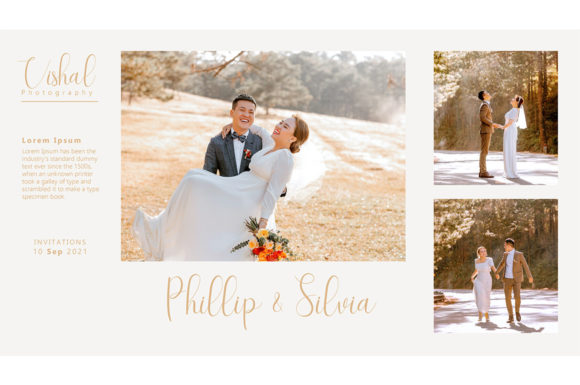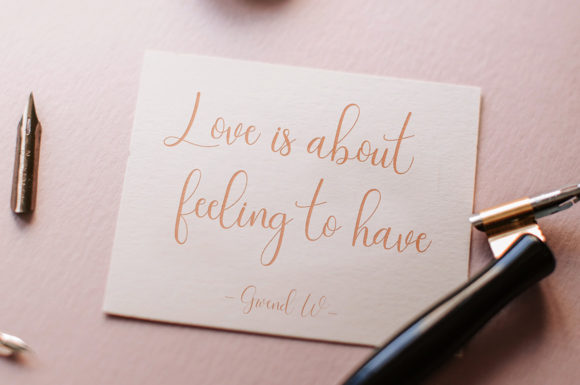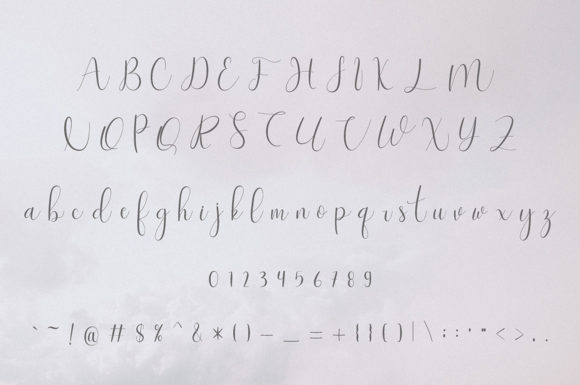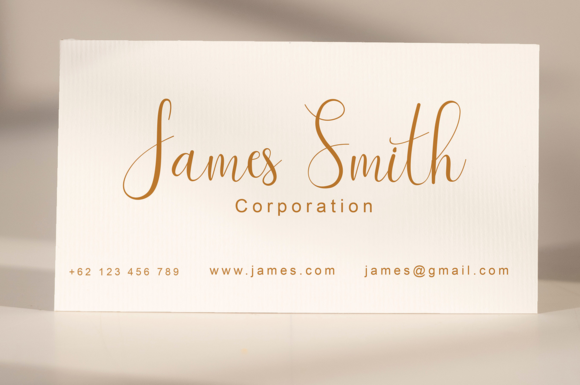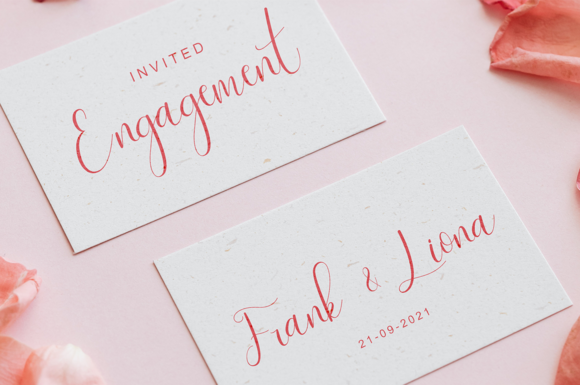
About Tuneshine Font
Tuneshine is a unique and attractive script font, suitable for designs such as banners, wedding invitations, products. It has beautiful curved lines that make your design more aesthetic and charming. Add this font to your designs, and see how it makes your designs unique.